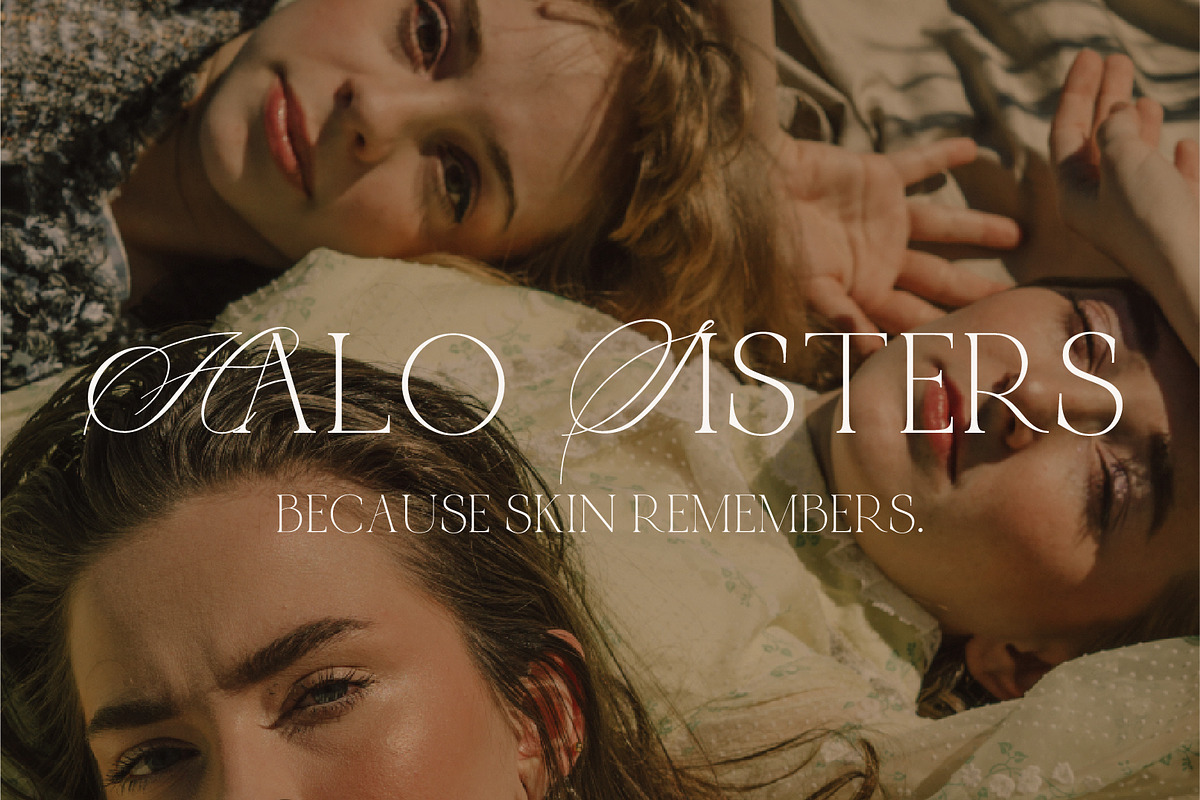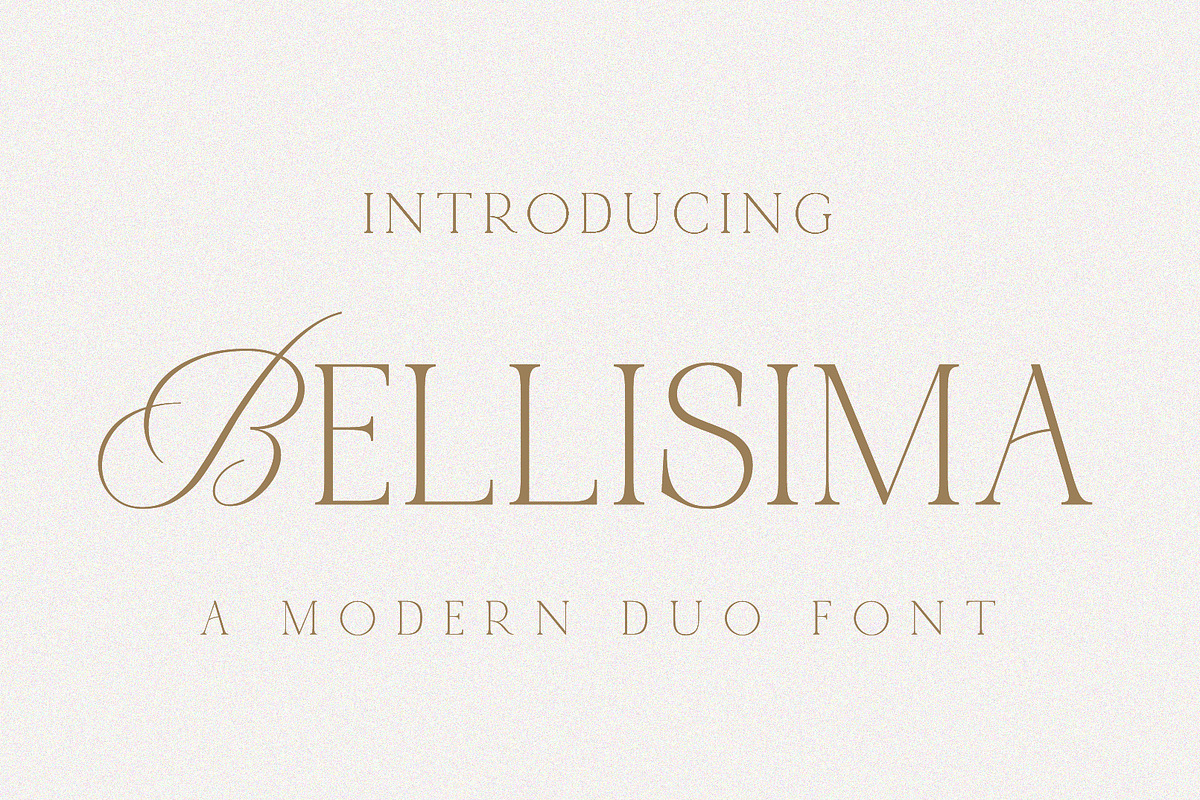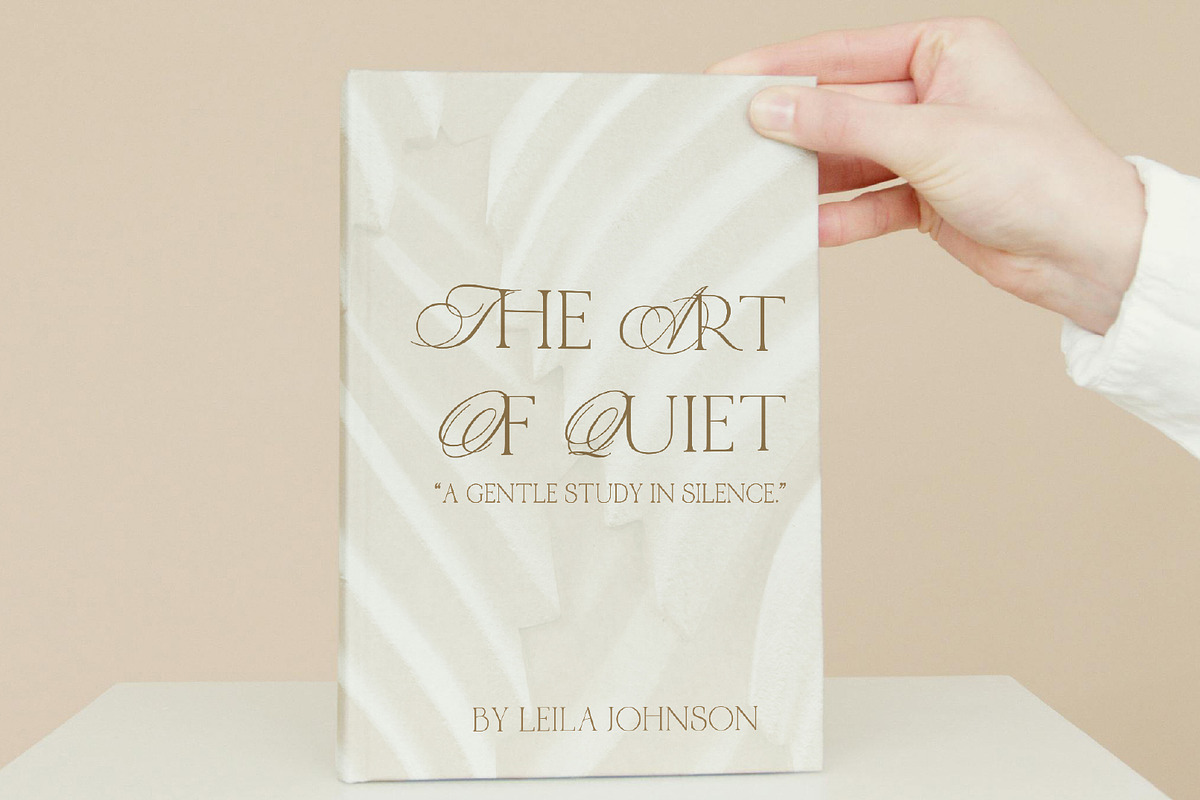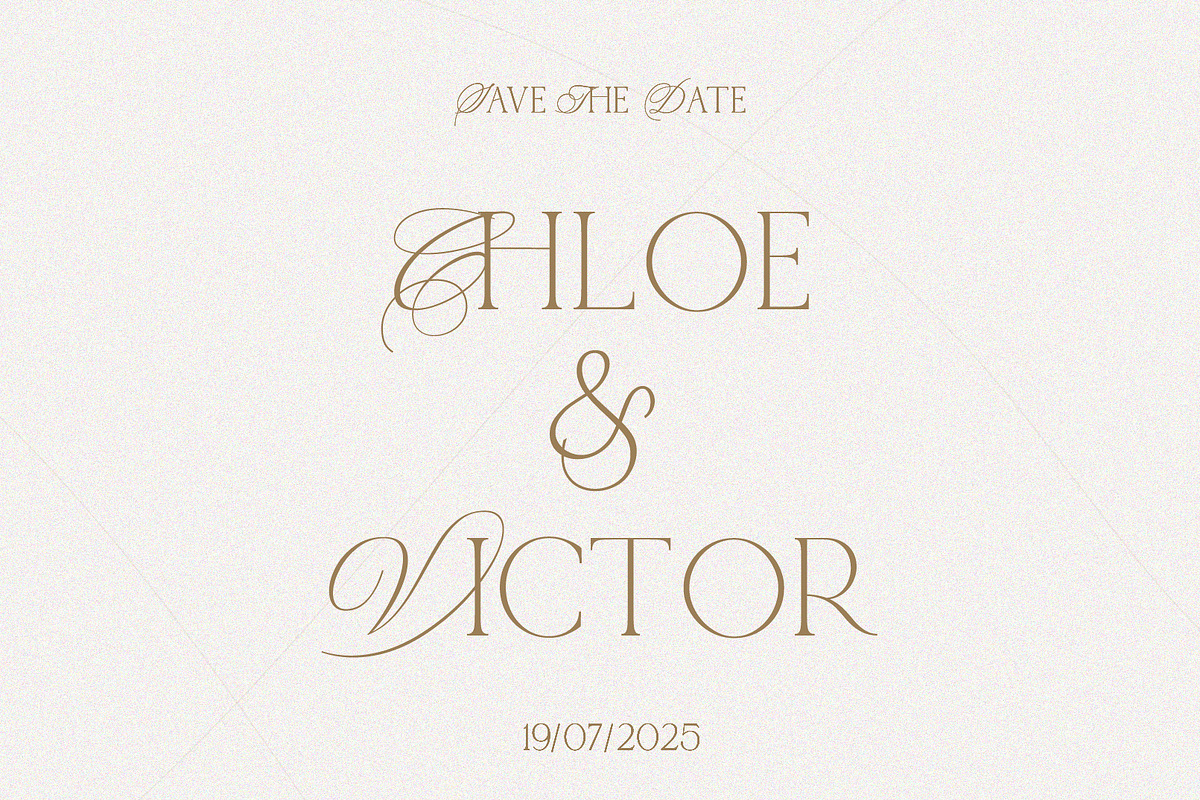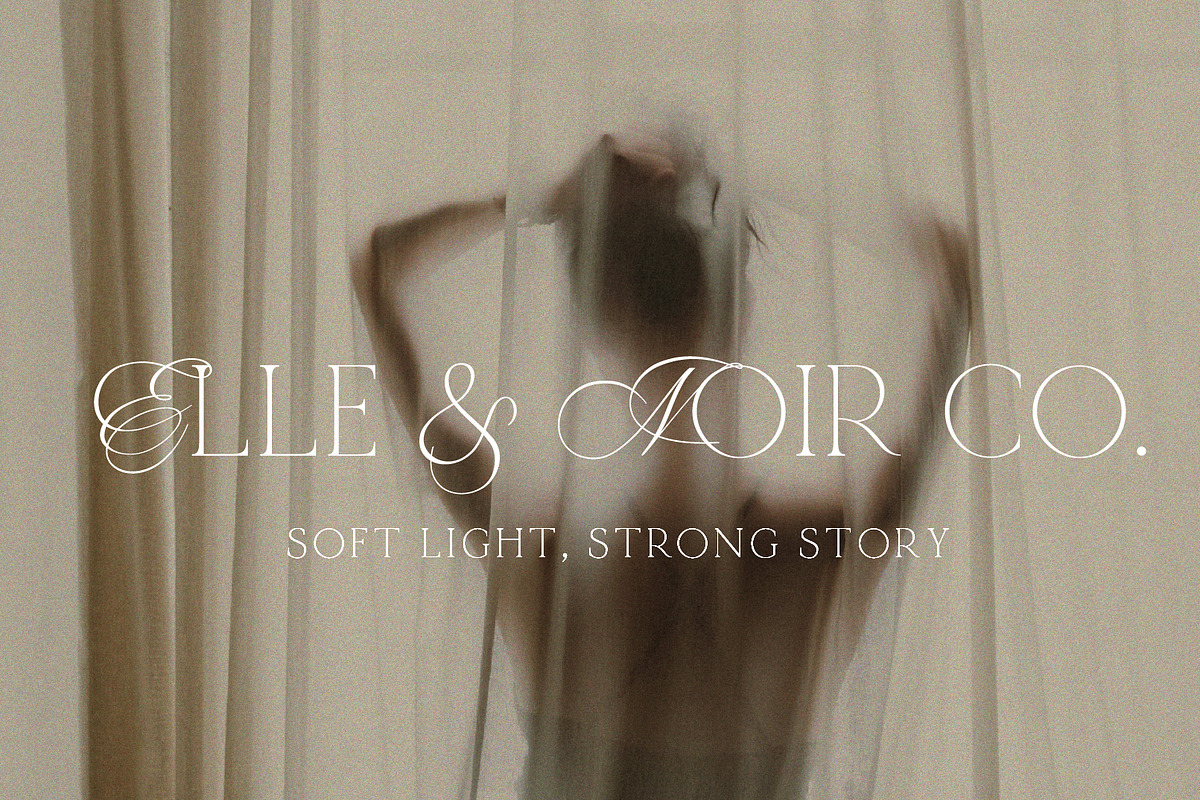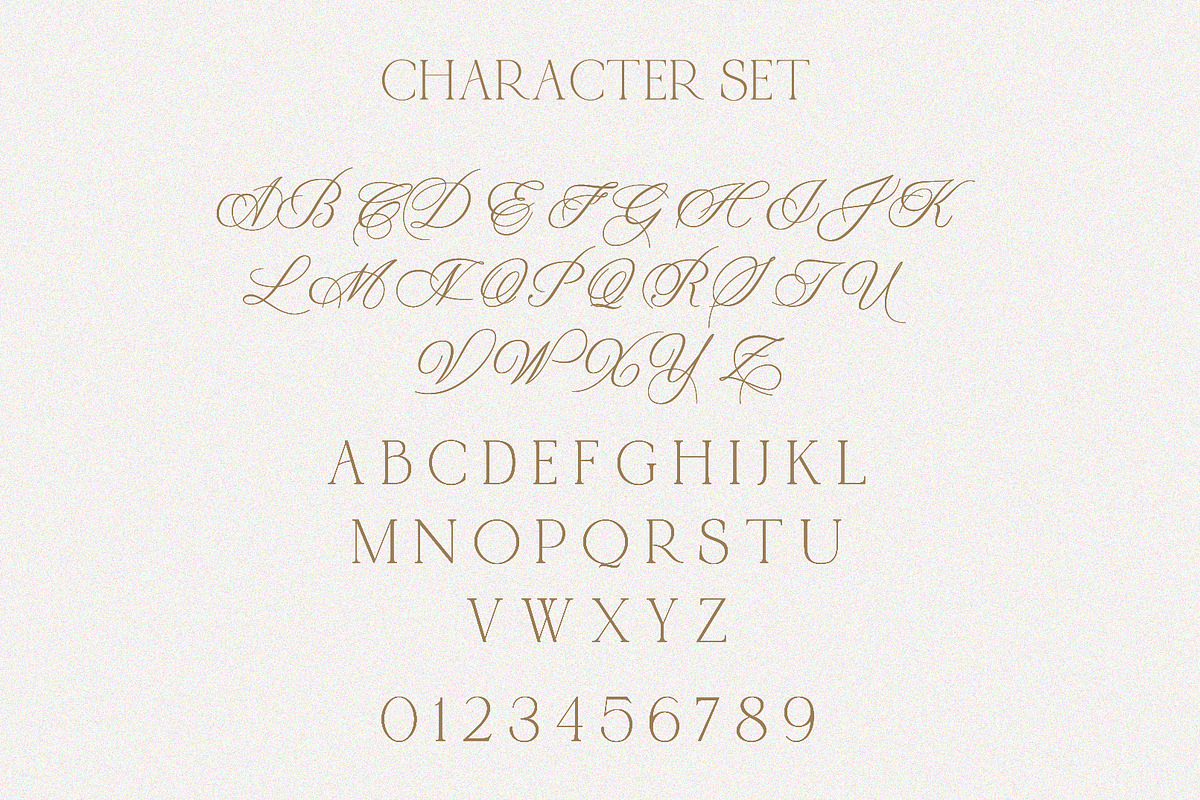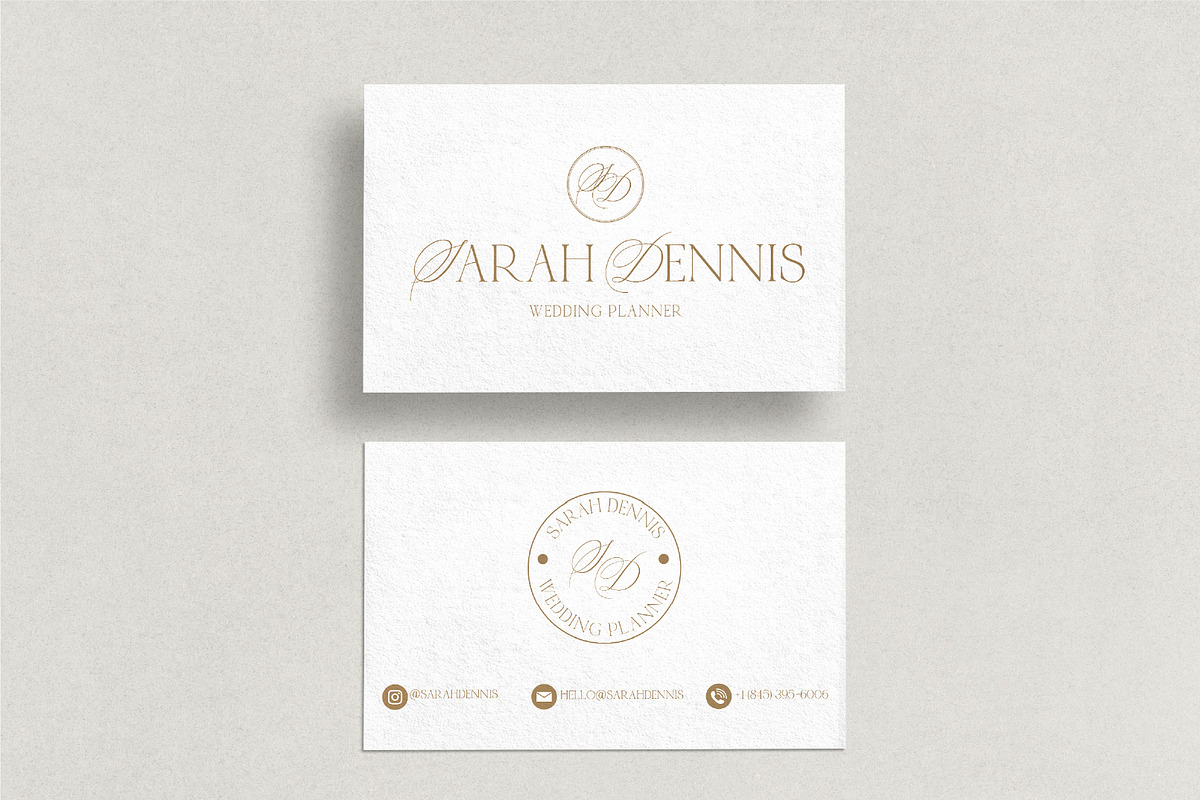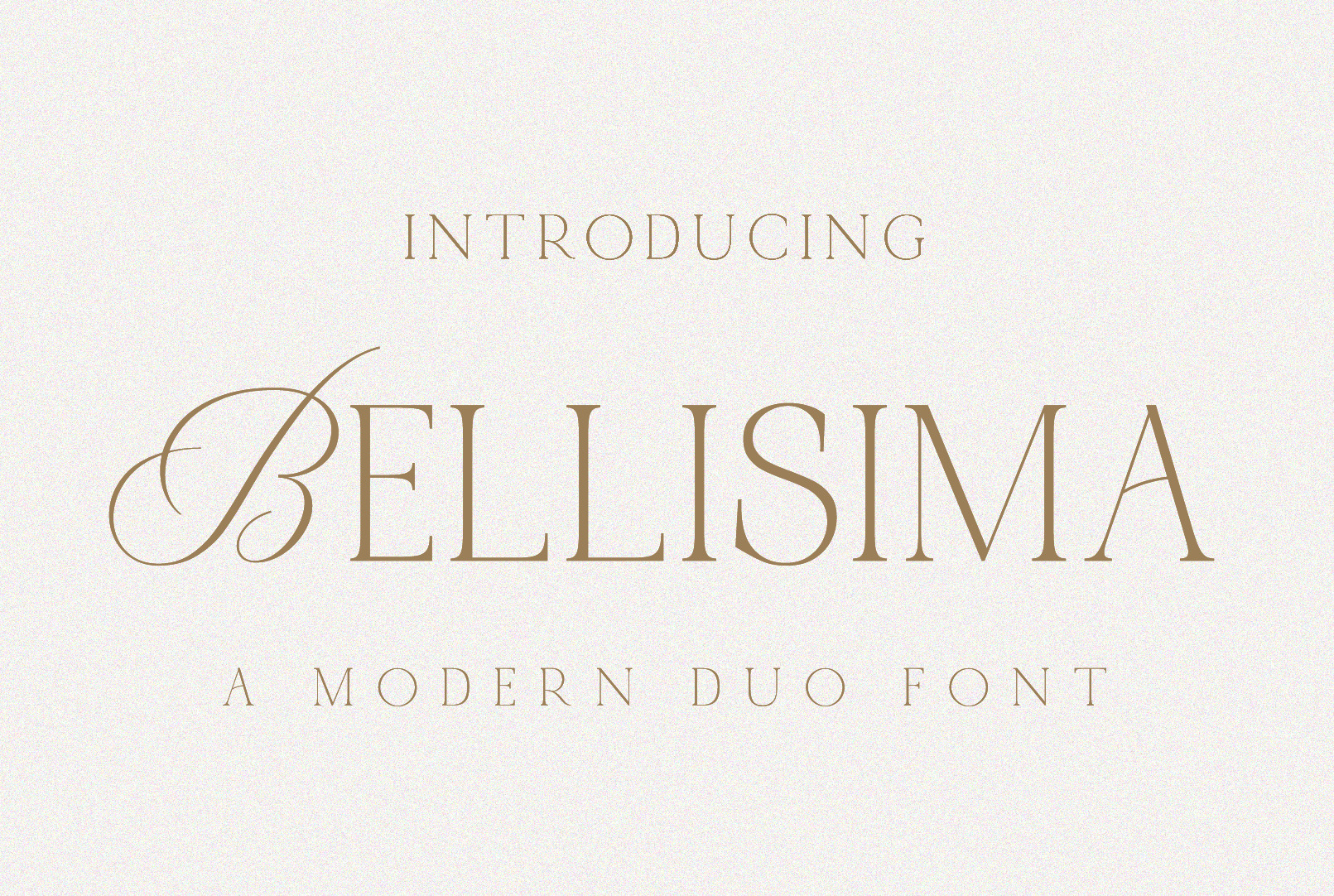
Bellisima A Duo Font
✨ Bellisima Duo – Duo Serif/Script Font ✨
Elevate your creative projects with Bellisima Duo, a striking, dual-style font that transforms your designs with effortless sophistication. With elegant script capitals and bold, uppercase serif lowercase letters, every character becomes a masterpiece.
- Uppercase Letters: Flowing, decorative script adding a touch of elegance
- Lowercase Letters: Rendered in refined, bold uppercase serif for a dramatic contrast
Ideal For:
- Branding & Logos: Make your brand stand out
- Wedding Invitations: Perfect for creating romantic, high-end stationery
- Cricut & Silhouette Projects: Unleash your creativity on digital and physical crafts
- Social Media Graphics & Editorials: Eye-catching visuals that capture attention
Why Bellisima Duo?
- Versatility: Combines the best of both worlds – artful script and strong serif – adaptable to a wide range of projects.
- High Quality: Meticulously crafted for clean, crisp results in any design.
Add a Touch of Timeless Elegance: Whether you’re designing luxurious wedding invitations, chic logos, or standout social media graphics, Bellisima Duo offers the perfect blend of sophistication and modern design.